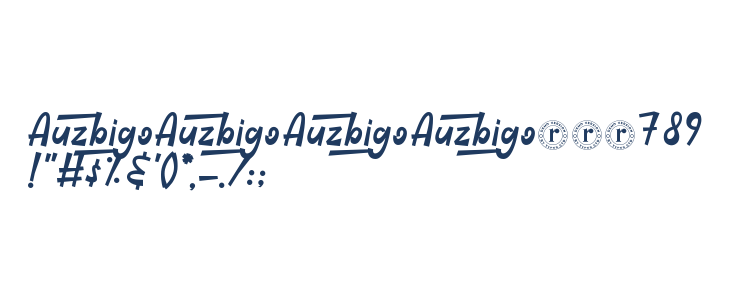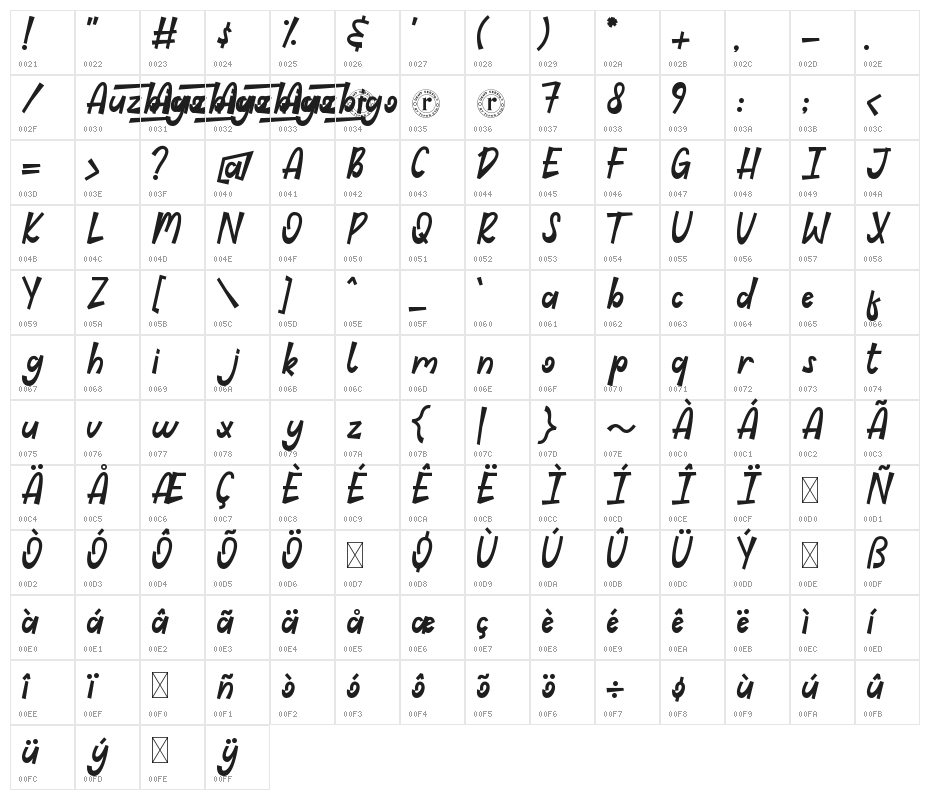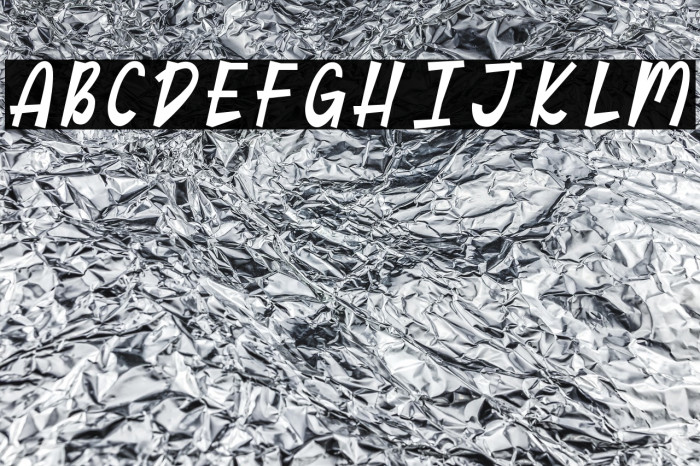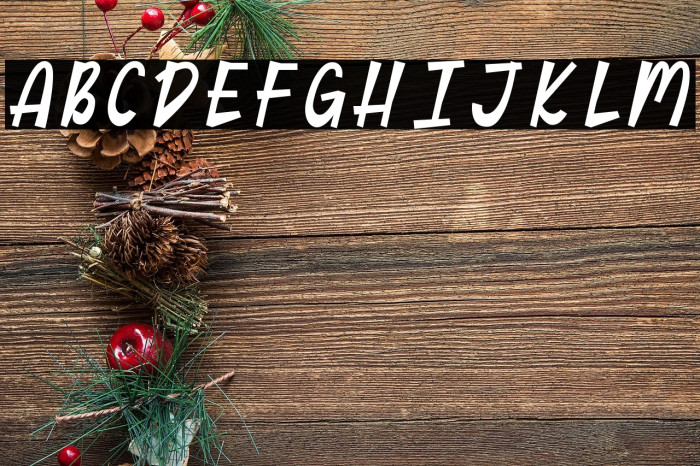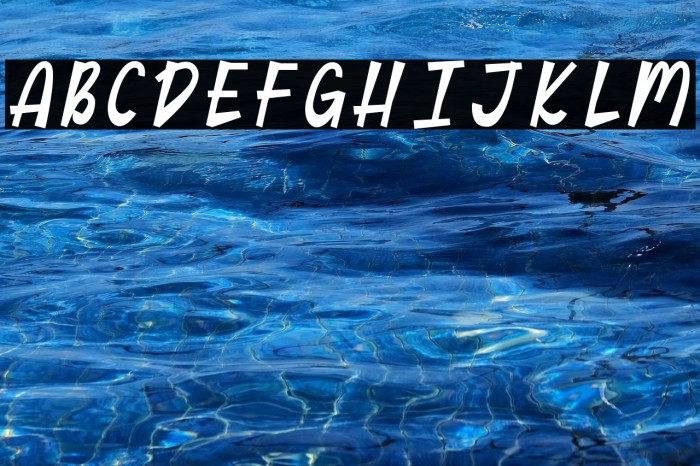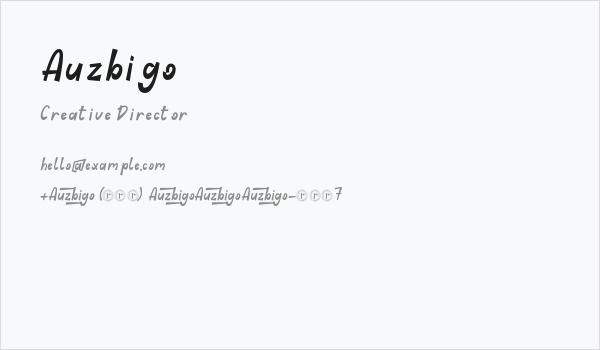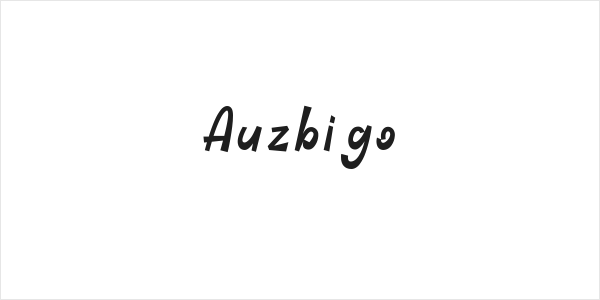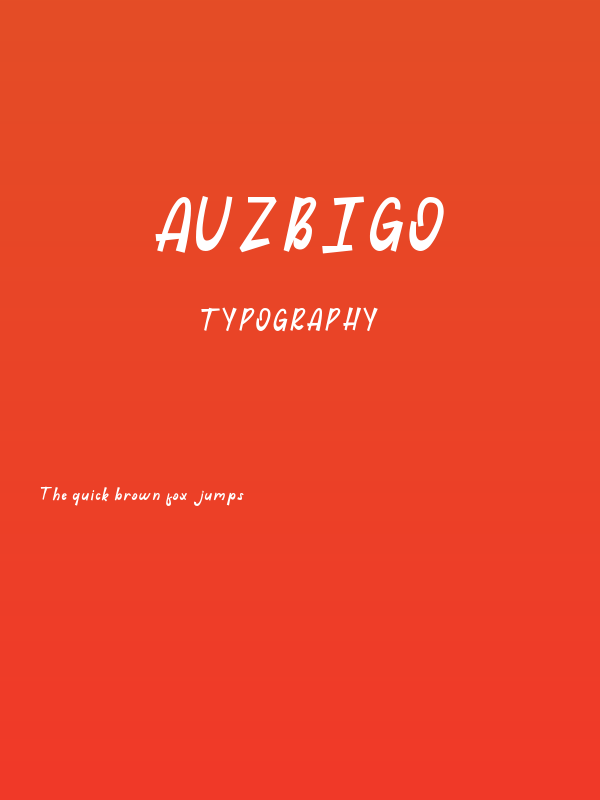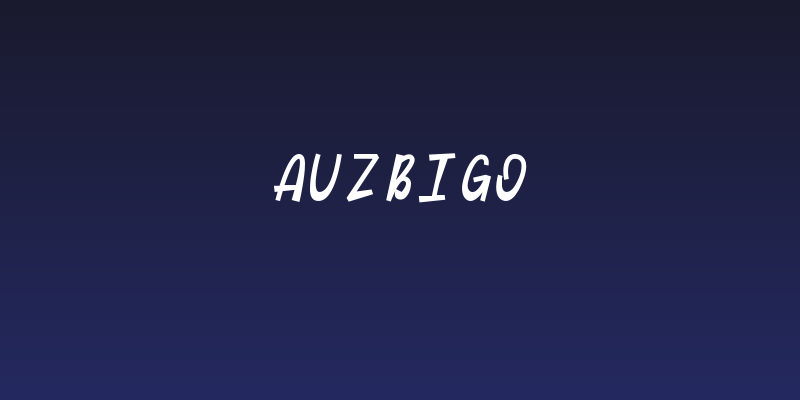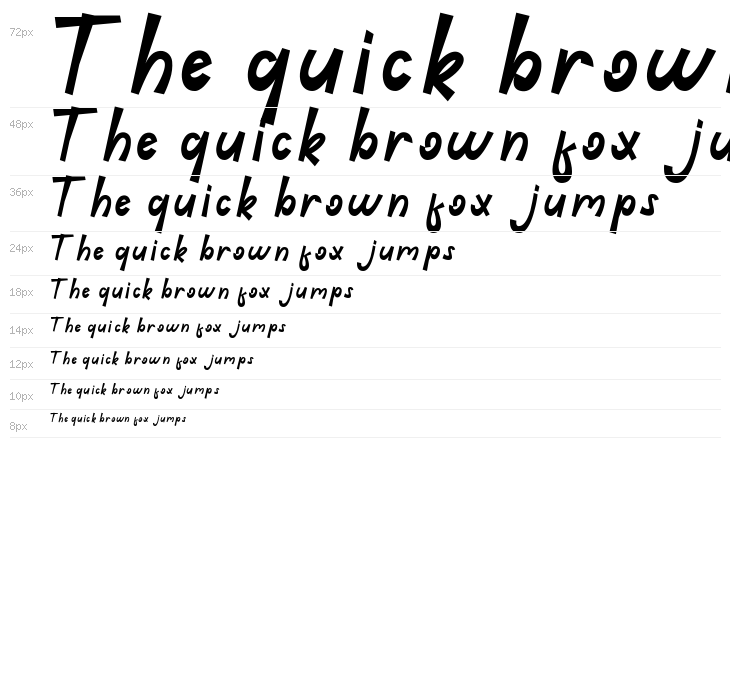
Auzbigo Font
Auzbigo Description
This font features a playful and dynamic style with a handwritten appearance. The letters are slightly slanted, giving a sense of motion and energy. The strokes are bold and consistent, with a medium contrast between thick and thin lines. The characters have a casual and informal feel, making them suitable for creative and fun projects. The spacing between characters is normal, allowing for easy readability while maintaining the font's lively character. The special characters and numbers maintain the same energetic style, ensuring a cohesive look across all text elements.
| Proposed Projects | Ideal for greeting cards, playful branding, children's books, and creative posters. |